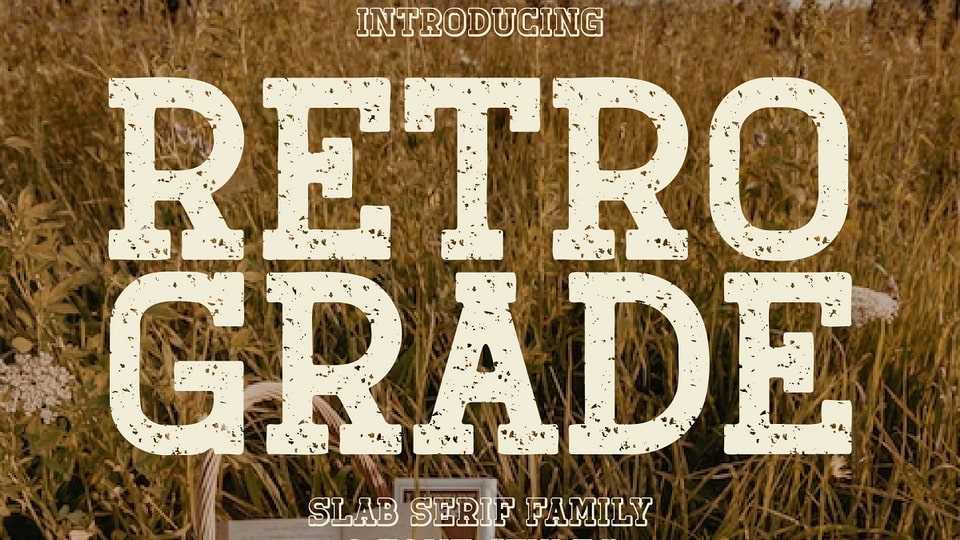
Download Retro Grade font, a slab serif typeface designed to add a touch of nostalgia to any project. Retro Grade font’s sturdy and bold structure making it perfect for designs that seek to capture the retro or vintage vibe.
Designer: Rvandtype Studio